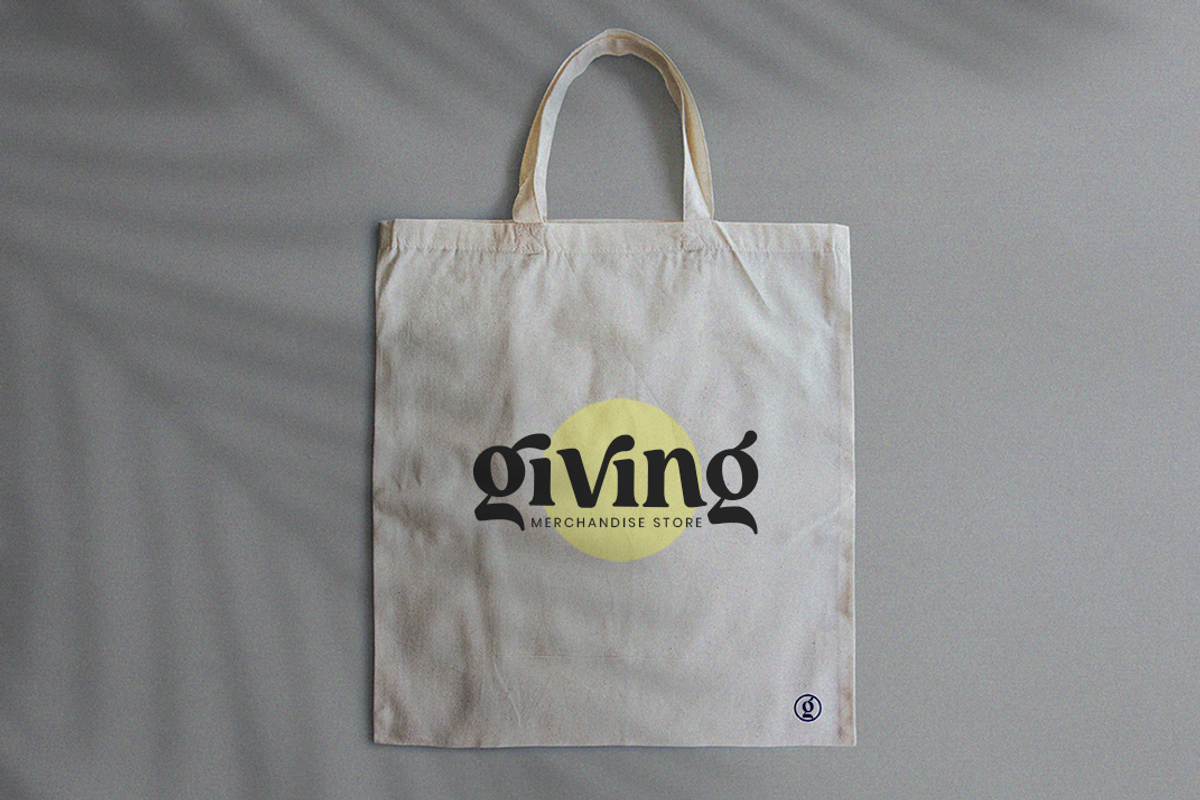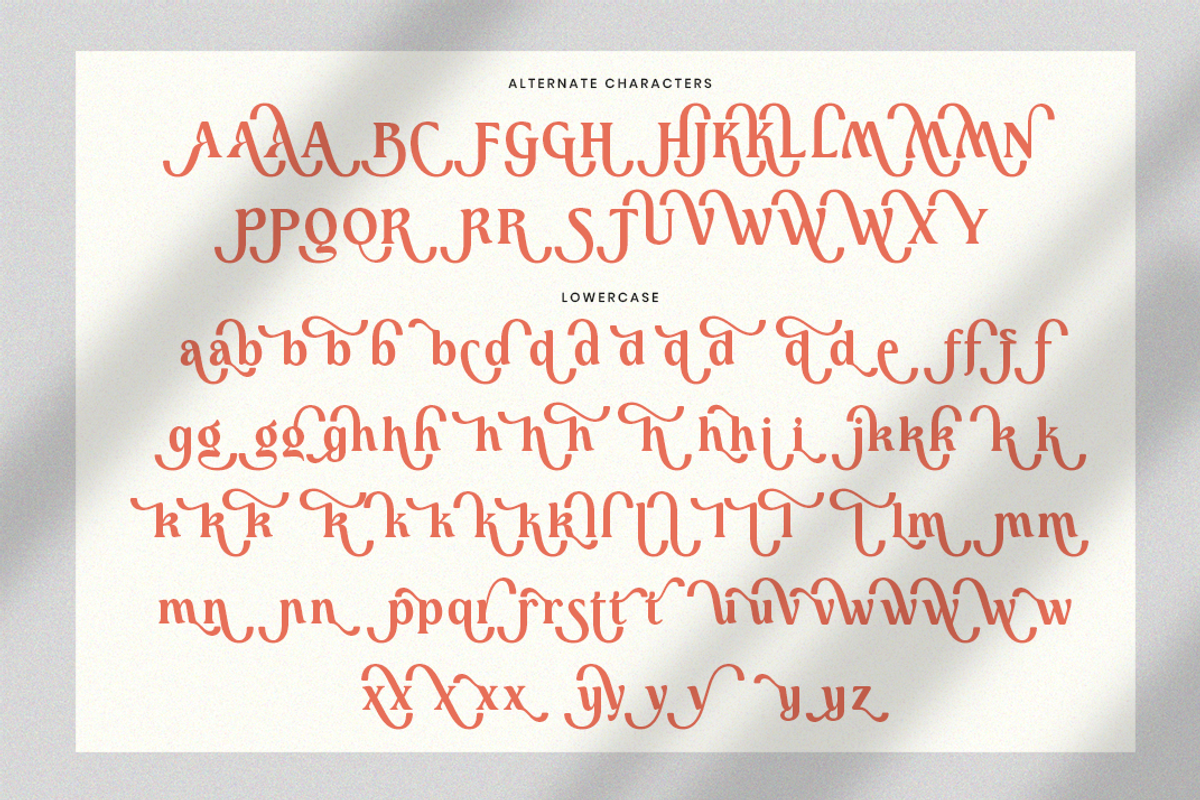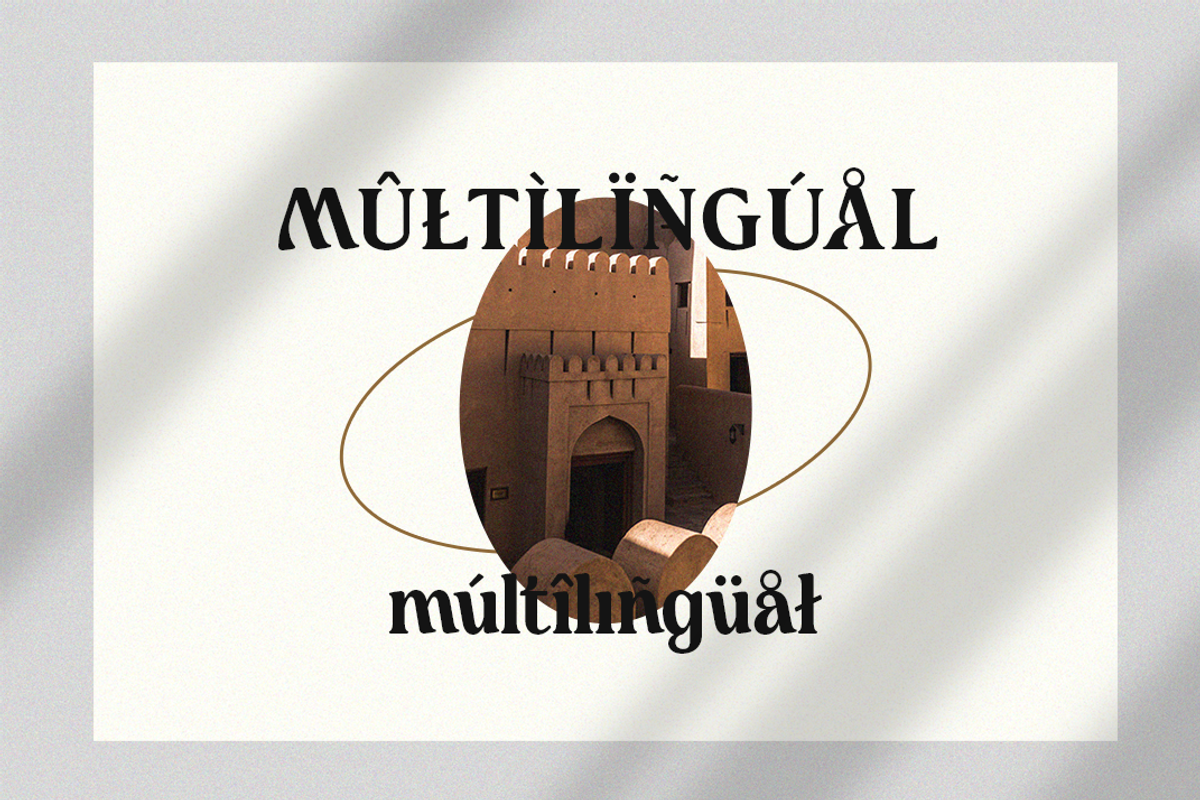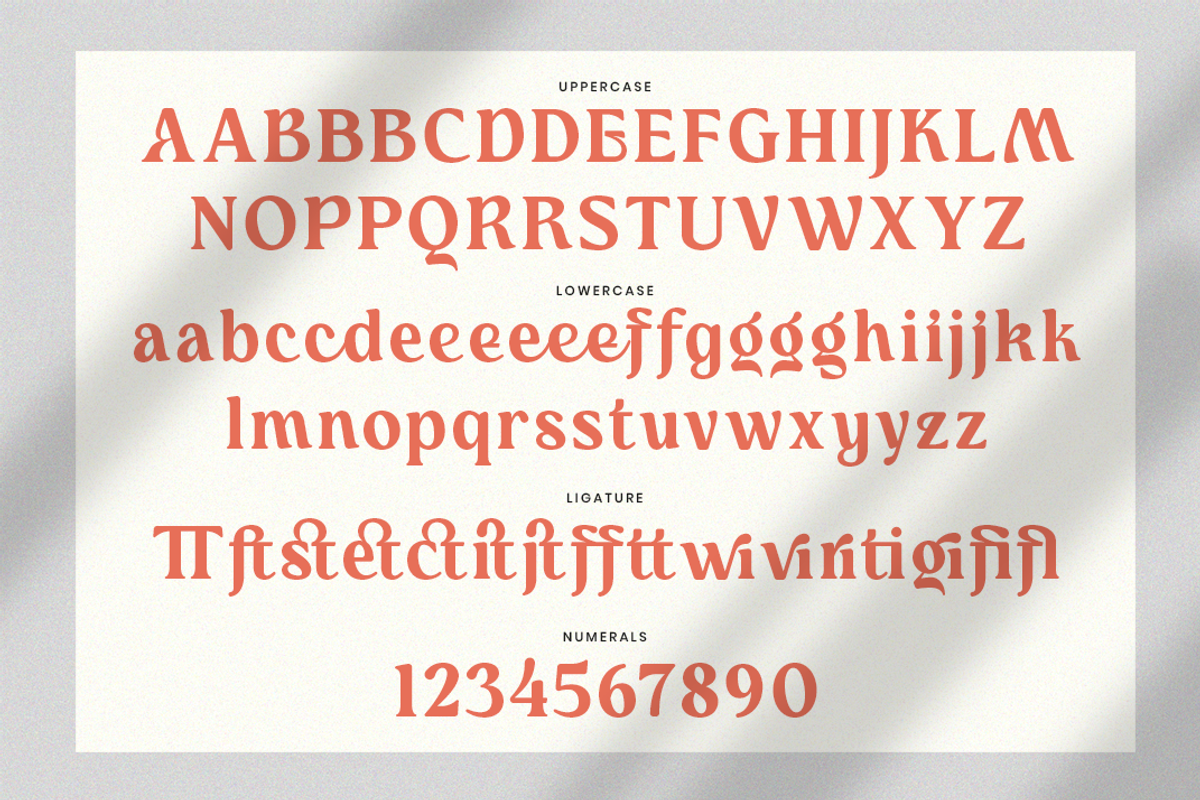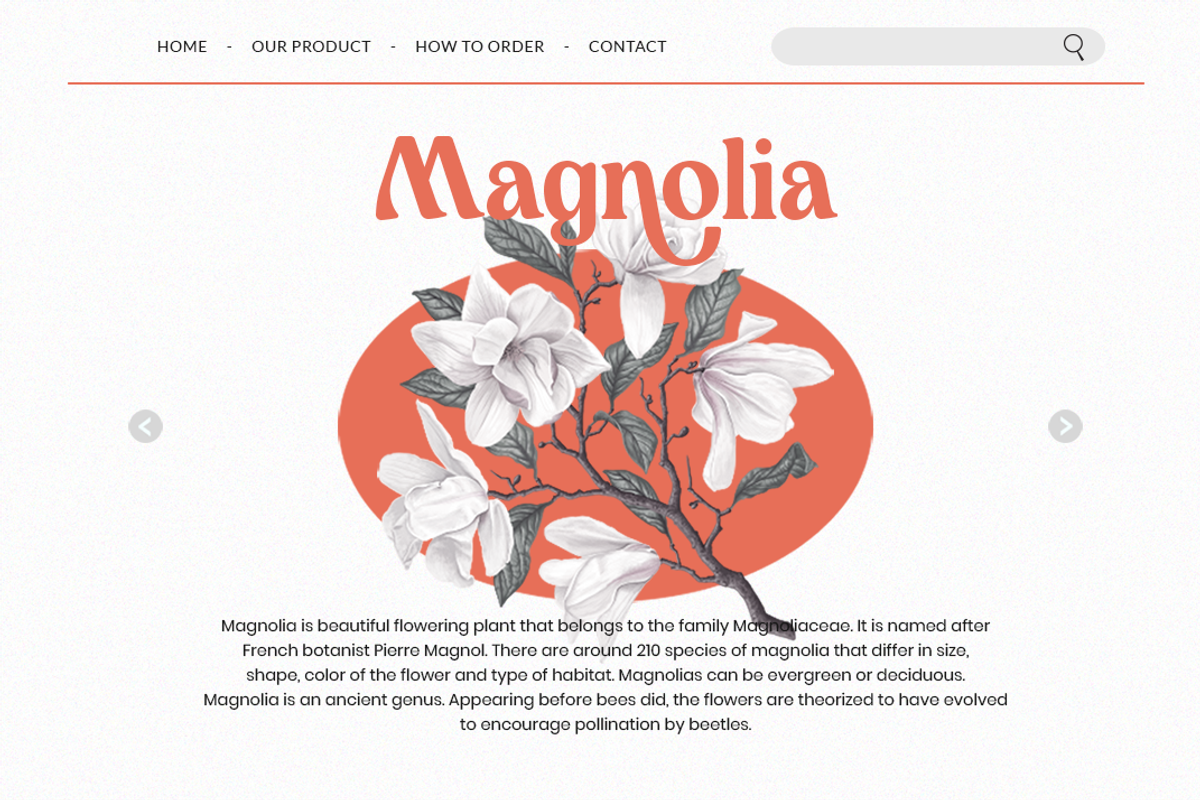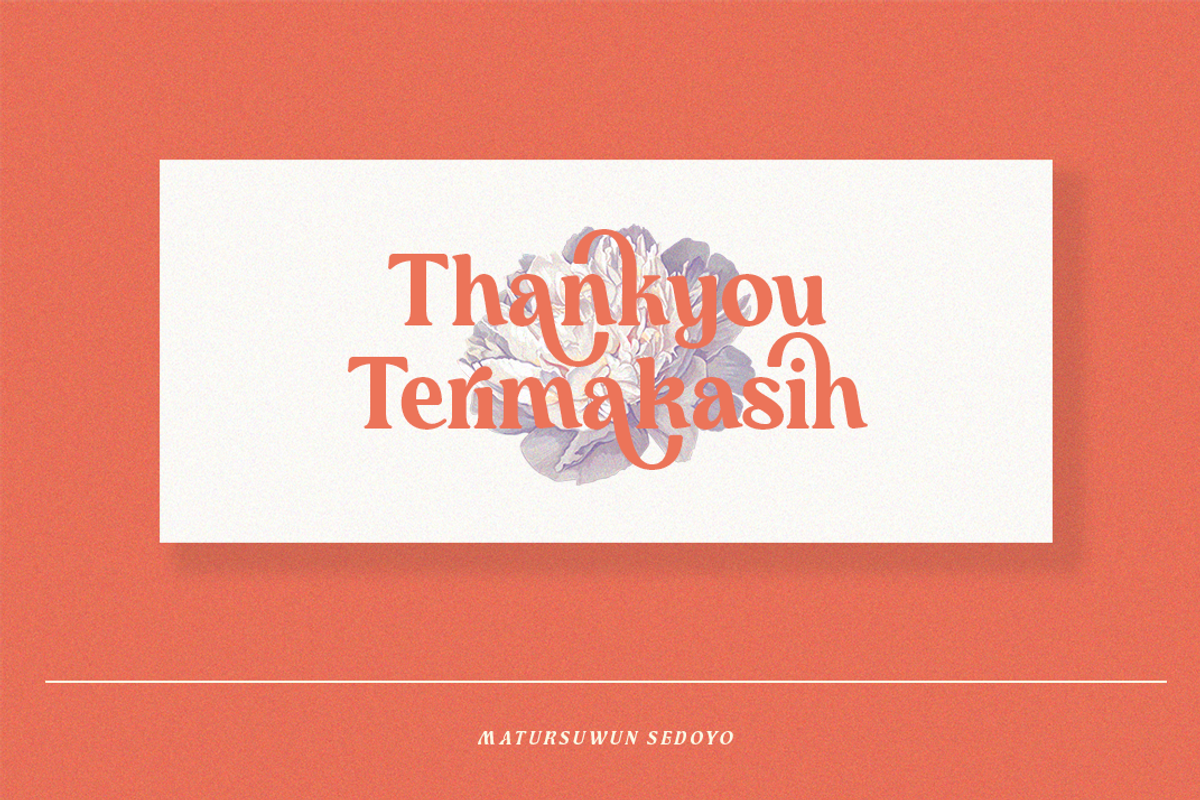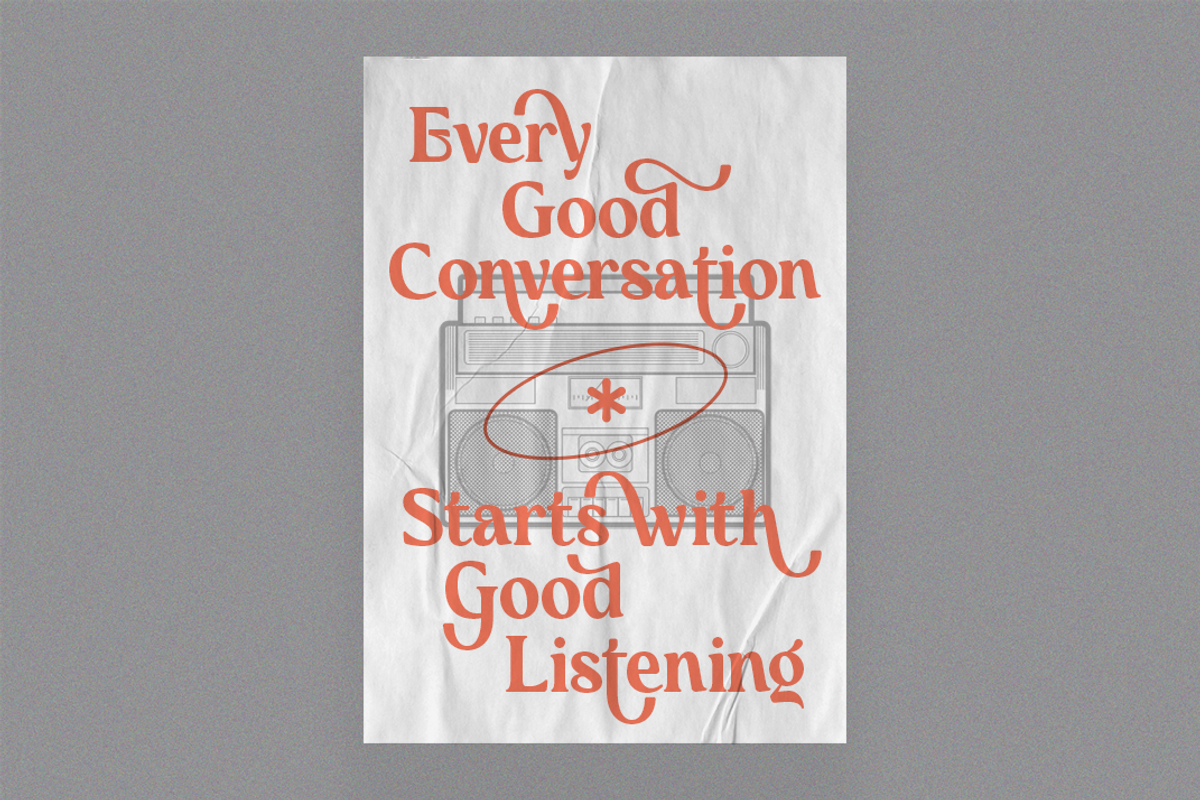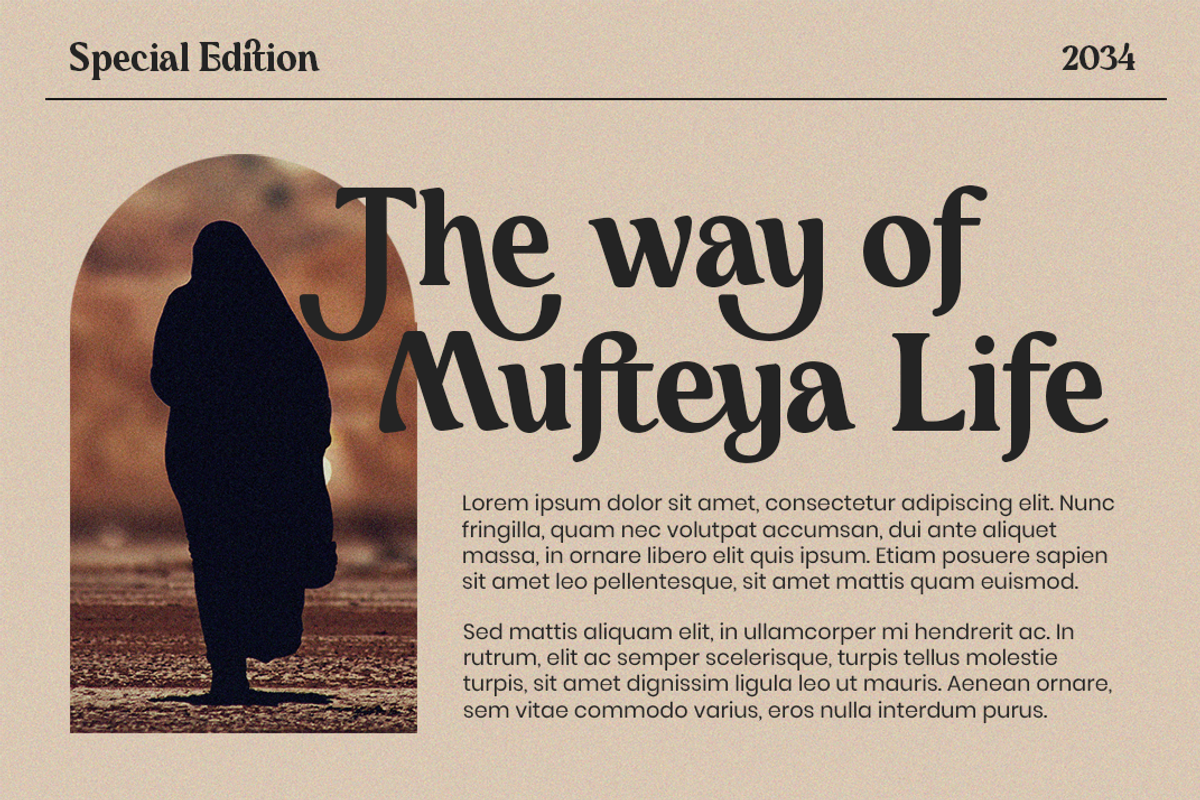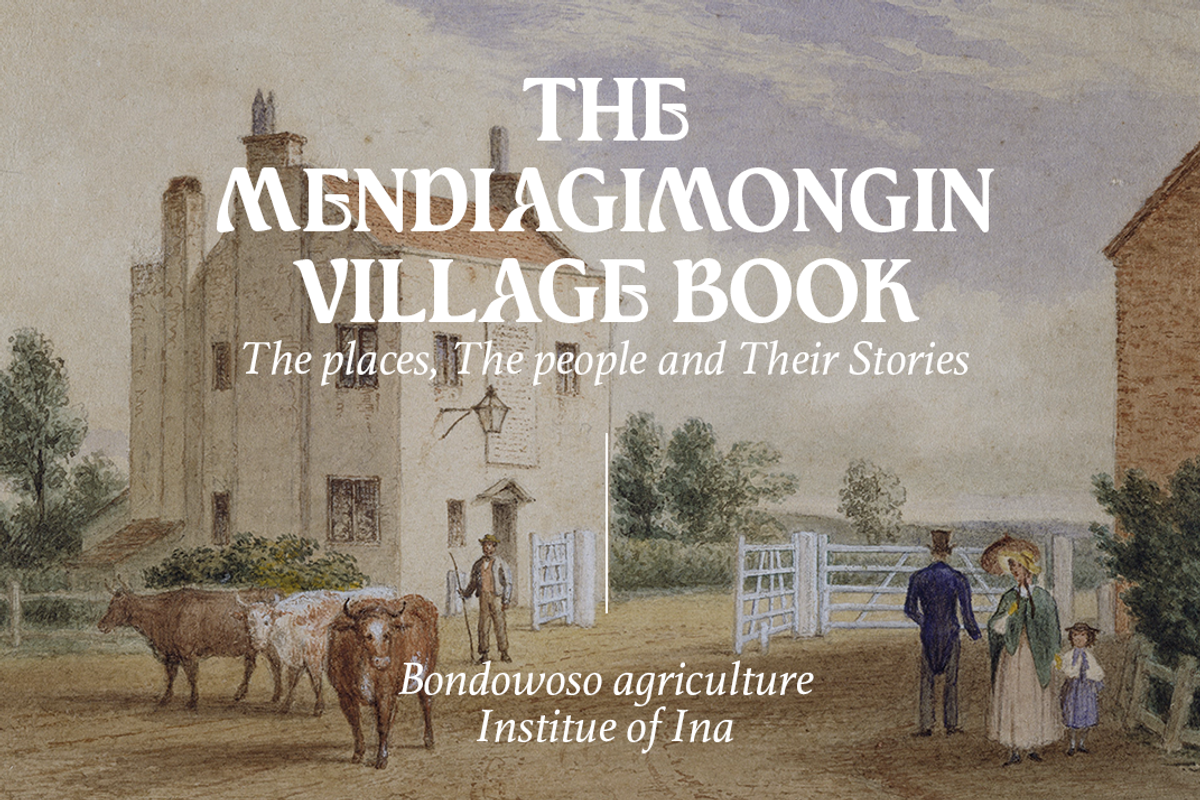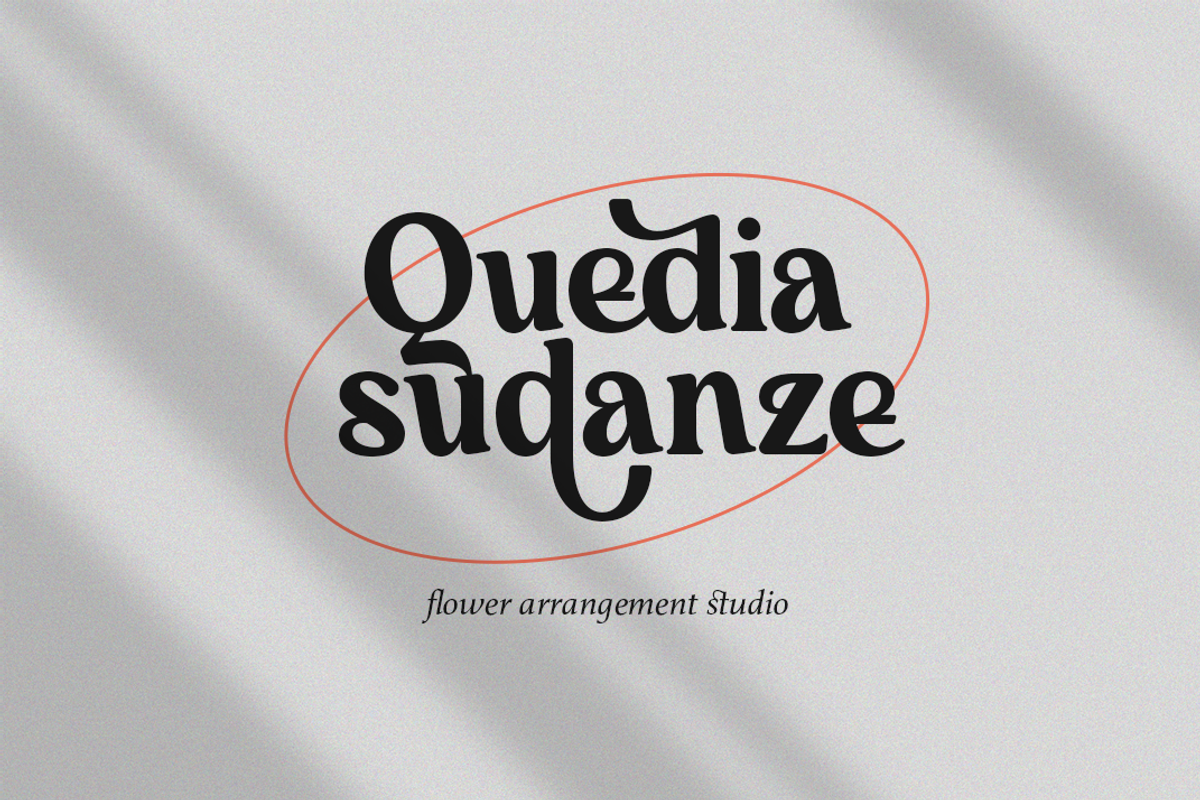
Mufteya - Retro Serif Font
Introducing Mufteya, a modern serif with some retro touch and stylish font, you can combine to get any variations and unique shapes easily just in seconds. Use it as an perfect solution for your next vintage logo, layout design, vintage poster, magazine headers, or simply as a stylish text overlay to any background image.
- Number & Punctuation
- Ligatures & Stylistic Alternates